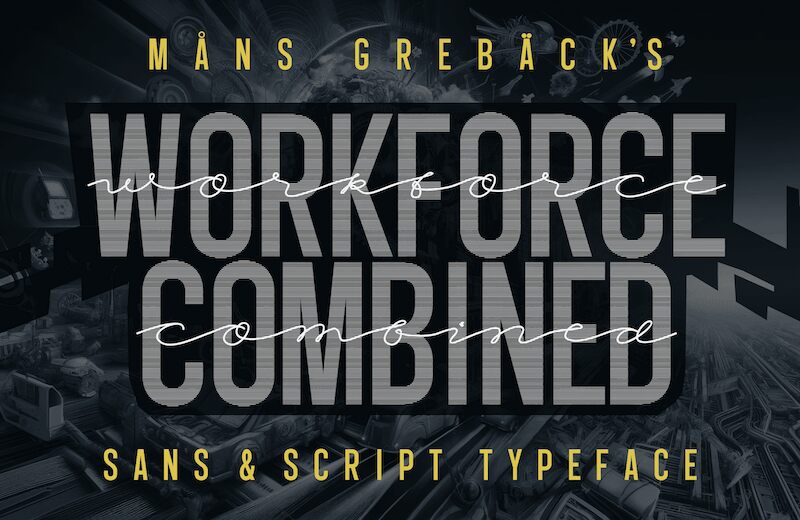
Workforce Combine, crafted by Mans Greback, is a stunning fusion of modern script and sans-serif elements. Its condensed form delivers an impactful visual punch, ideal for making logos stand out and graphic designs memorable. The streamlined width enhances its sophisticated charm while maintaining legibility and style. Workforce Combine’s distinctive look partners seamlessly with contemporary aesthetics, lending a refined yet dynamic quality to any project.
Perfect for branding endeavors that require a bold statement and elegant readability, this typeface promises to leave a lasting impression.